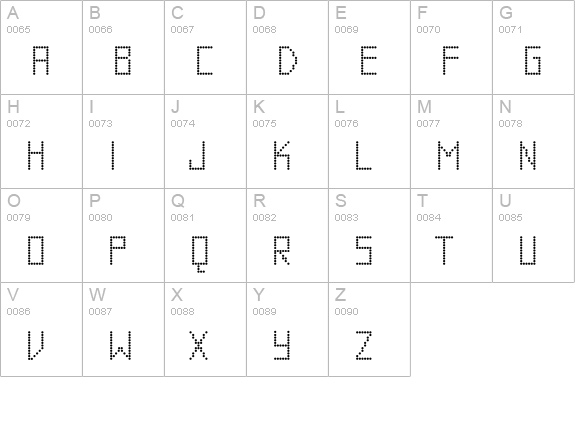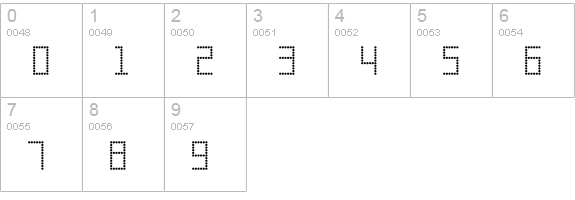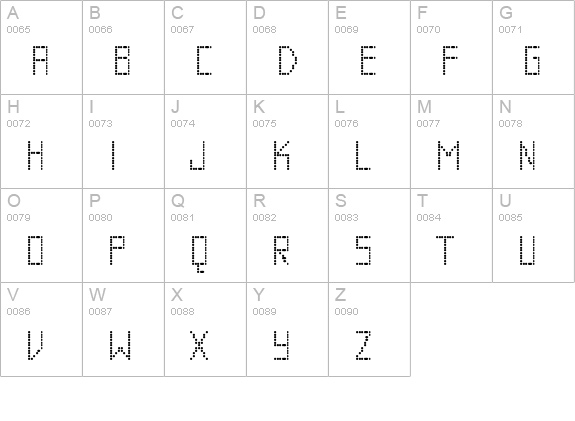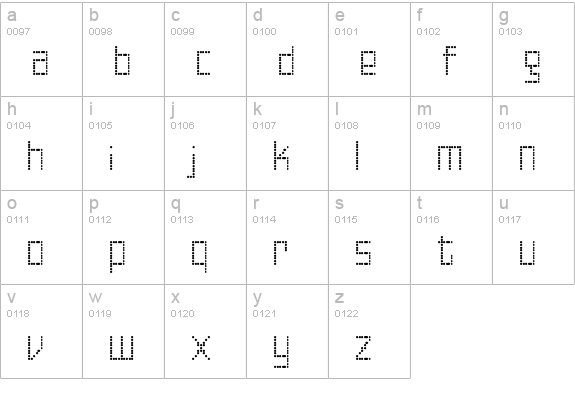
PFOnlineOnePro-Single Font Details
Introducing PFOnlineOnePro-Single font, a versatile and modern typeface that is perfect for a wide range of design projects. With its sleek lines and clean aesthetic, this font exudes professionalism and sophistication. Whether you are working on branding, advertising, or editorial design, PFOnlineOnePro-Single font is sure to make a statement. What sets PFOnlineOnePro-Single font apart is not only its stylish design but also the fact that it is completely free to download. That's right, you can access this high-quality font at no cost, making it a valuable resource for designers and creatives looking to elevate their work without breaking the bank. To get your hands on PFOnlineOnePro-Single font, simply head over to FontsMarket.com and download it today. With its easy accessibility and premium quality, this font is a must-have addition to your design toolkit. Elevate your projects with PFOnlineOnePro-Single font and watch your designs come to life with style and sophistication.